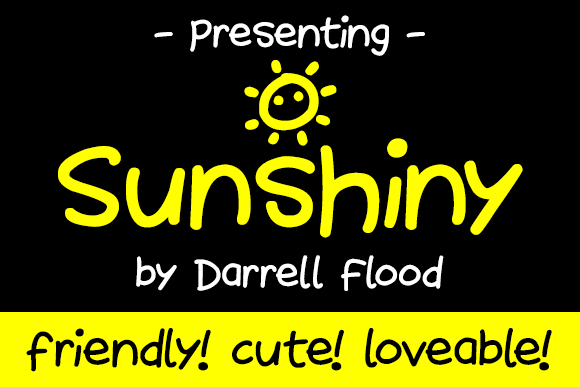
Sunshiny Font
About Sunshiny Font
A cute, fun font in a freehand marker style. Includes sun characters. Perfect for Summer themes, picnics, and generally happy settings!